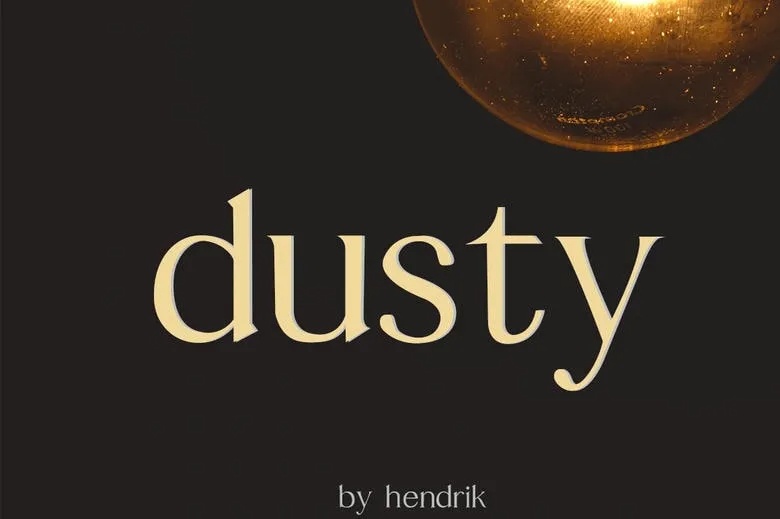
Modern Font
Modern is a classy and modern serif font with a unique style that exudes elegance and sophistication. This typeface is perfect for creating logos for luxurious goods and services, book and movie titles, fashion and clothing brands, magazines, fonts, quotes, and more. Its refined design can add a distinctive touch to any of your creative projects, making them stand out with a special flair.